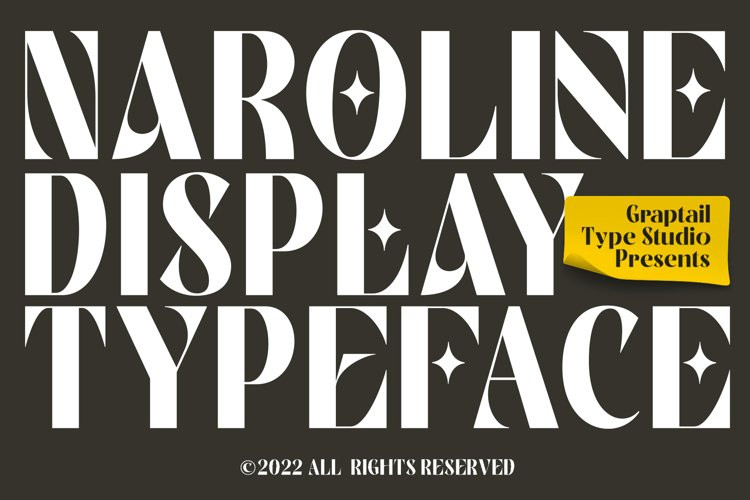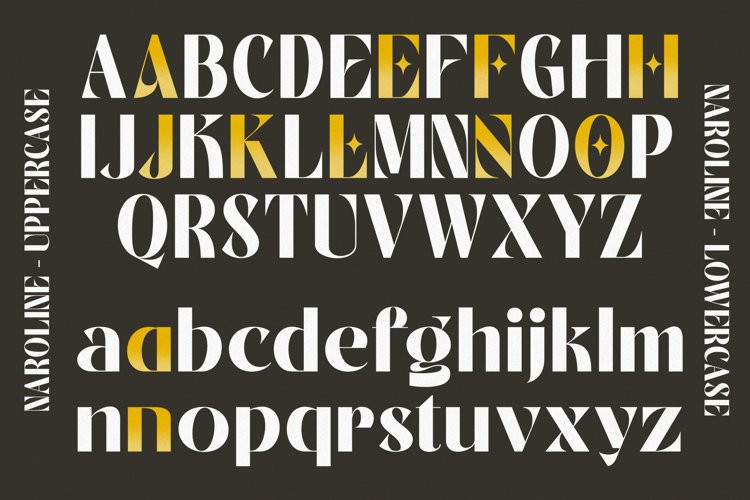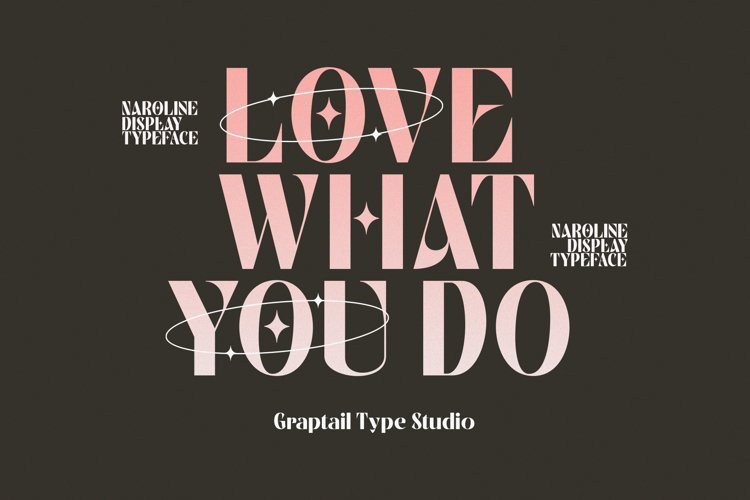
Naroline Font
Naroline FontNaroline is a typefaces with a strong characteristic. The ideas are from Art Nouveau era, explore some of other art era and combining them into strong characteristic Naroline. The final fonts are looks Classic yet Modern, like what we do on the preview above, how the fonts can “stands” within your design.